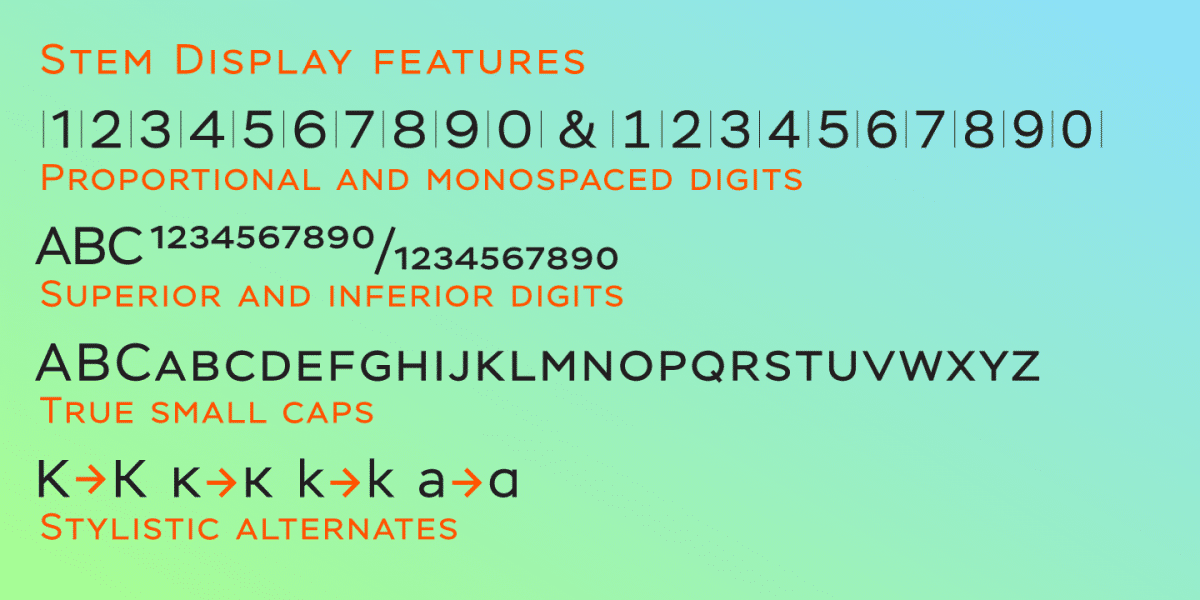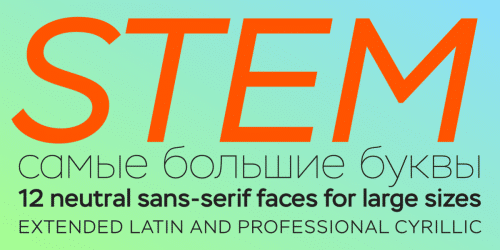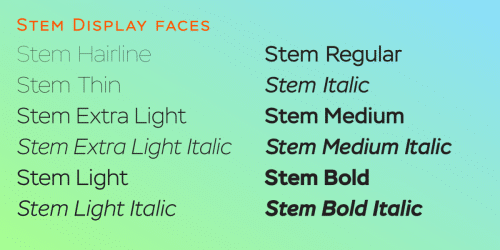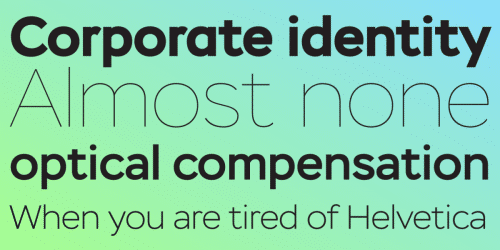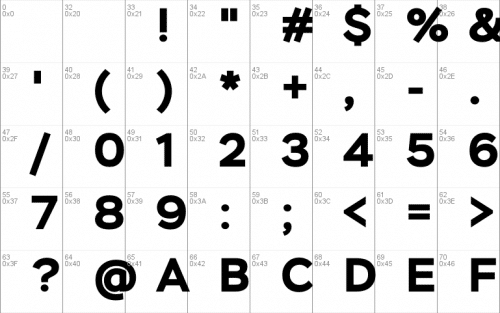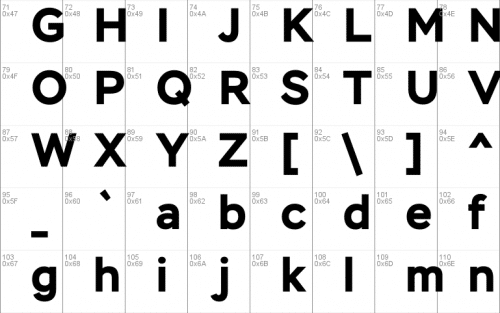
The thing is that many sans-serif typefaces are usually intended for universal usage. But sometimes faces that work fine in body text look not so good in large point sizes for display purposes when all the contrast in non-contrast sans-serif, or ink traps, become visible to the naked eye.
Every designer solves this problem in his own way. We offer a drastic solution in our Stem: a sans-serif with optical sizing. The first part of the type family, Stem Display, is for use in largest point sizes, from 36 pt indefinitely. Stem Display consists of 12 faces of widths from Hairline to Bold, and it has true italics. The development of Stem type family will include Stem Text for body text and “traditional”, universal use, and Stem Caption for small point sizes.
Stem is a geometric sans-serif with semi-closed aperture, large x-height and modern proportions of uppercase letters, like in famous Avenir and Gotham. Its important feature is a professionally designed and carefully tested Cyrillic glyph set.